Dan Sinclair / New Work
Game Play, Saliency, and Urgency.
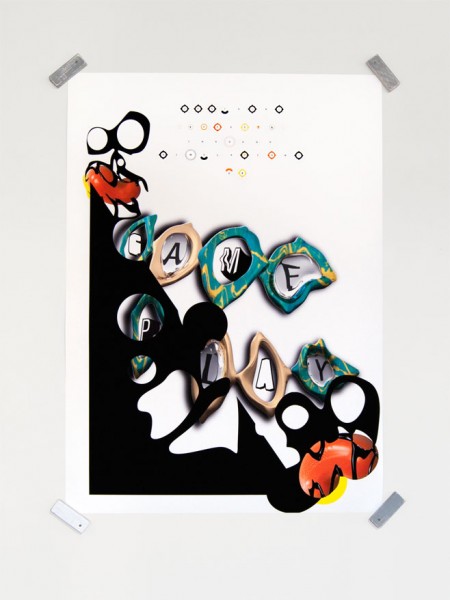
Above: Dan Sinclair, Game Play (33″x46″, 2013). I am really grateful to Dan for allowing his recent work to be shared here. Dan is a 2nd year graduate student at the Cranbrook Academy of Art and, true to form, still very much in command of his own voice that he has been developing for some many years now. Always keenly experimental yet incisive, his new work delights with fresh possibility and a strong sense of embracing an imminent future.
Some may remember an older post where Dan’s broad vision managed to accommodate the seemingly impossible, creating an aesthetic and conceptual balance with a highly unlikely cast of characters. These new pieces suggest Dan has found a true home in his studio practice, indeed he explains these pieces as part of a series of truisms he has found. It will be fascinating to see where these new forms lead him.
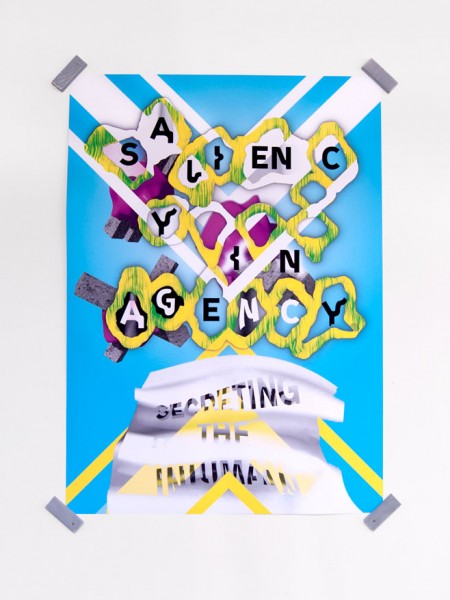
Above: Dan Sinclair, Saliency (33″x46″, 2013).
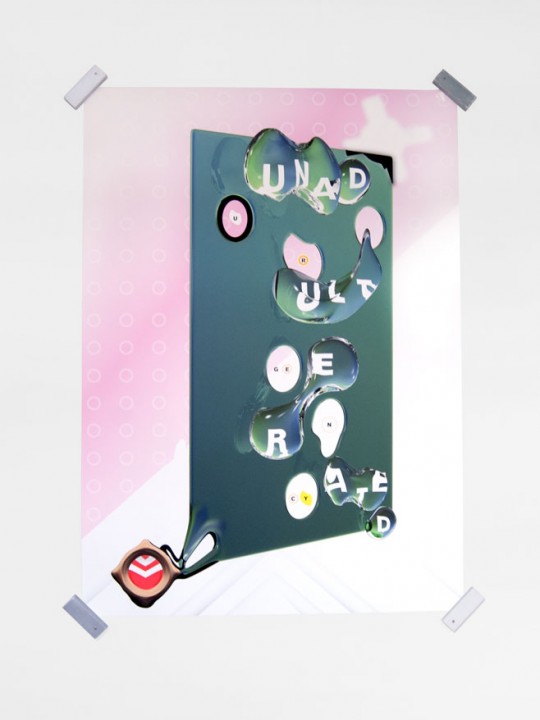
Above: Dan Sinclair, Urgency (33″x46″, 2013).